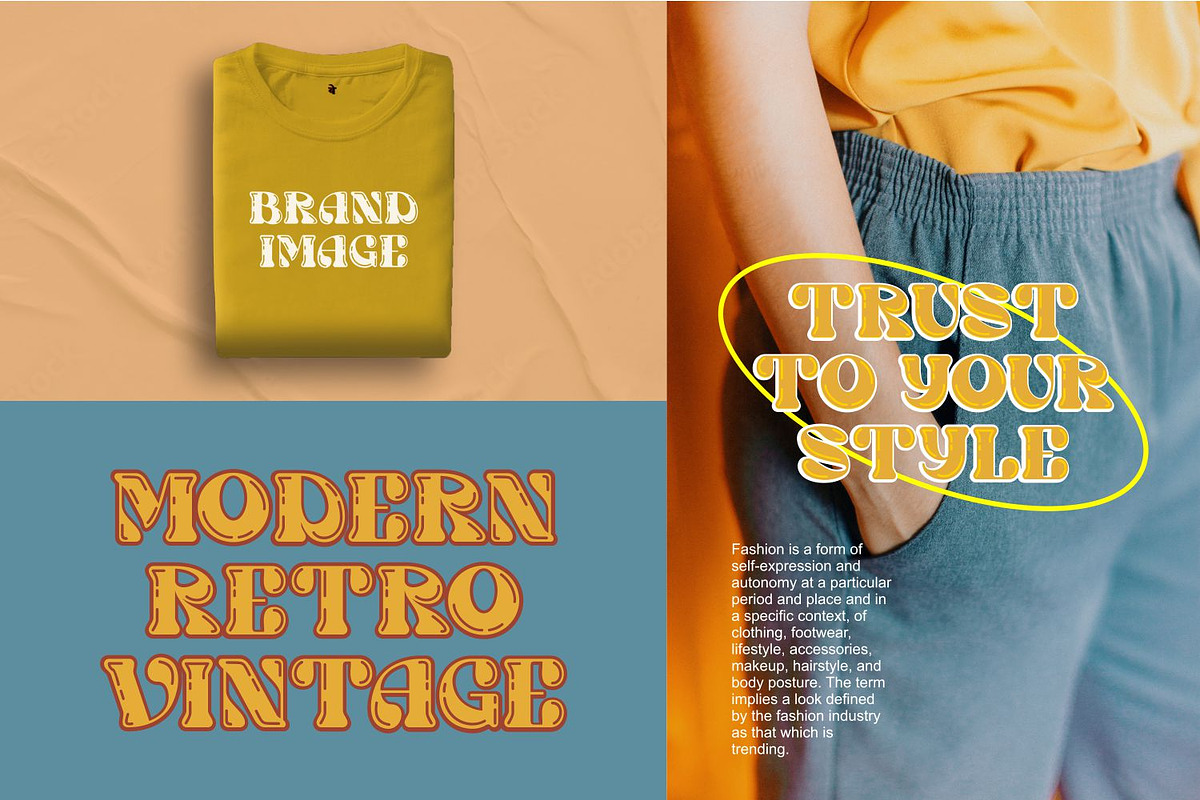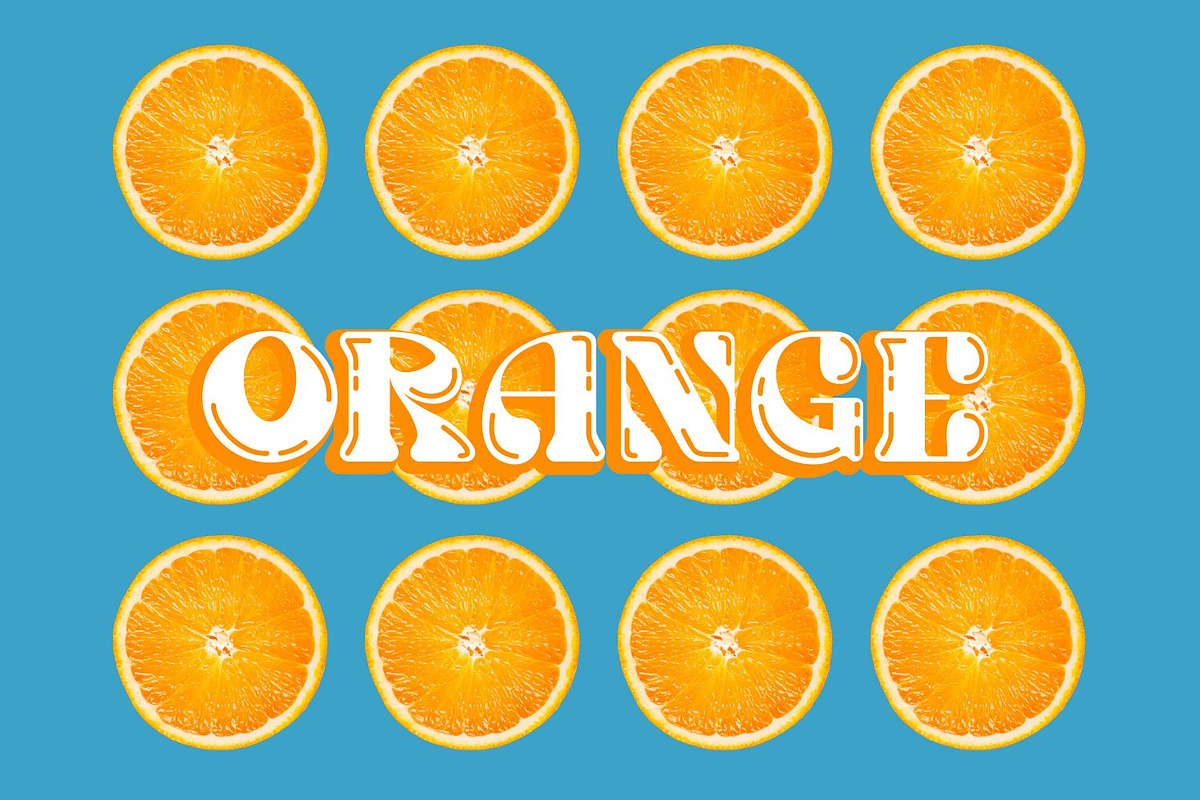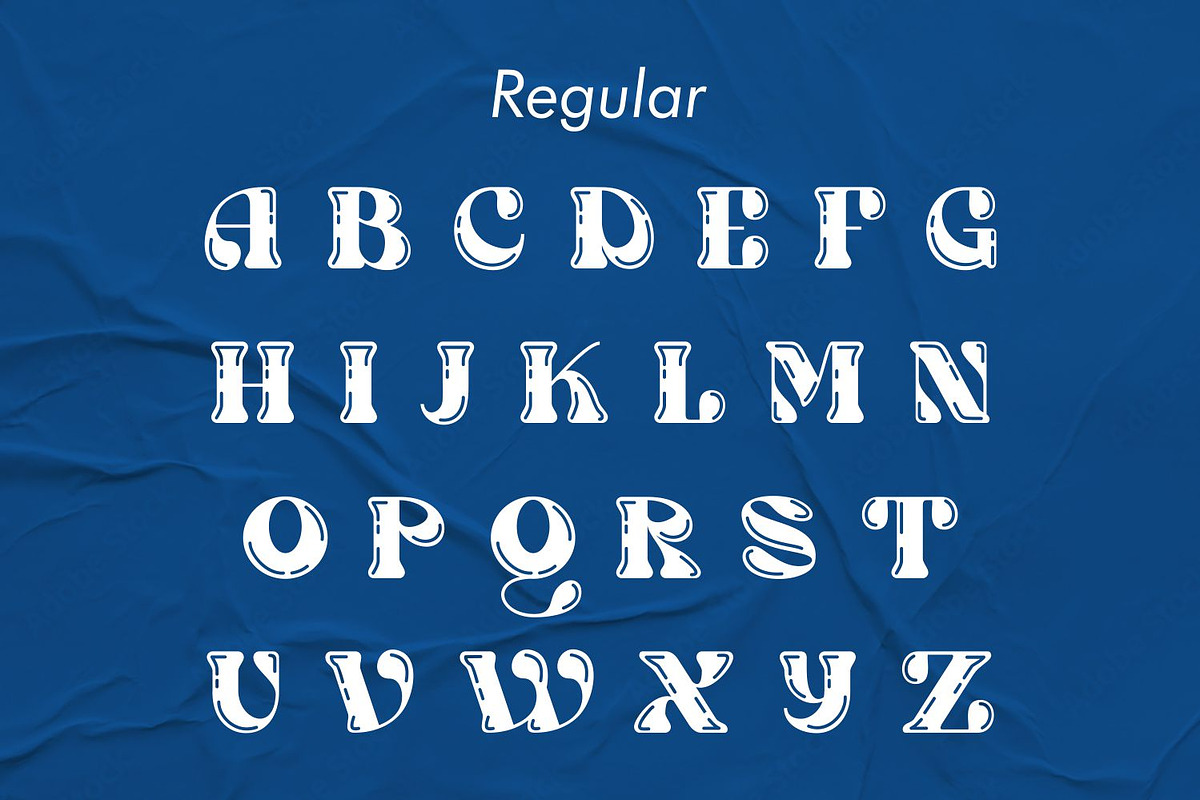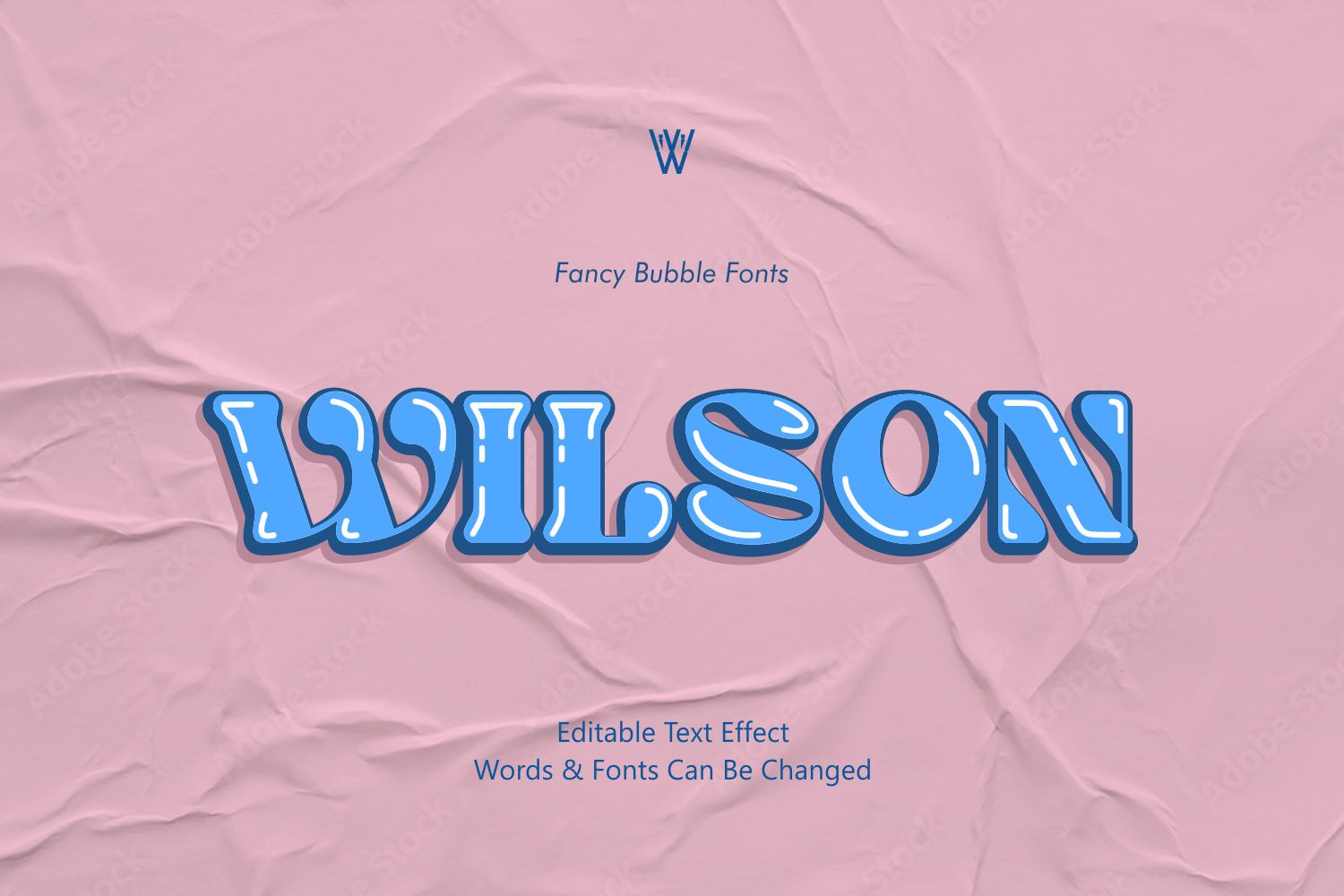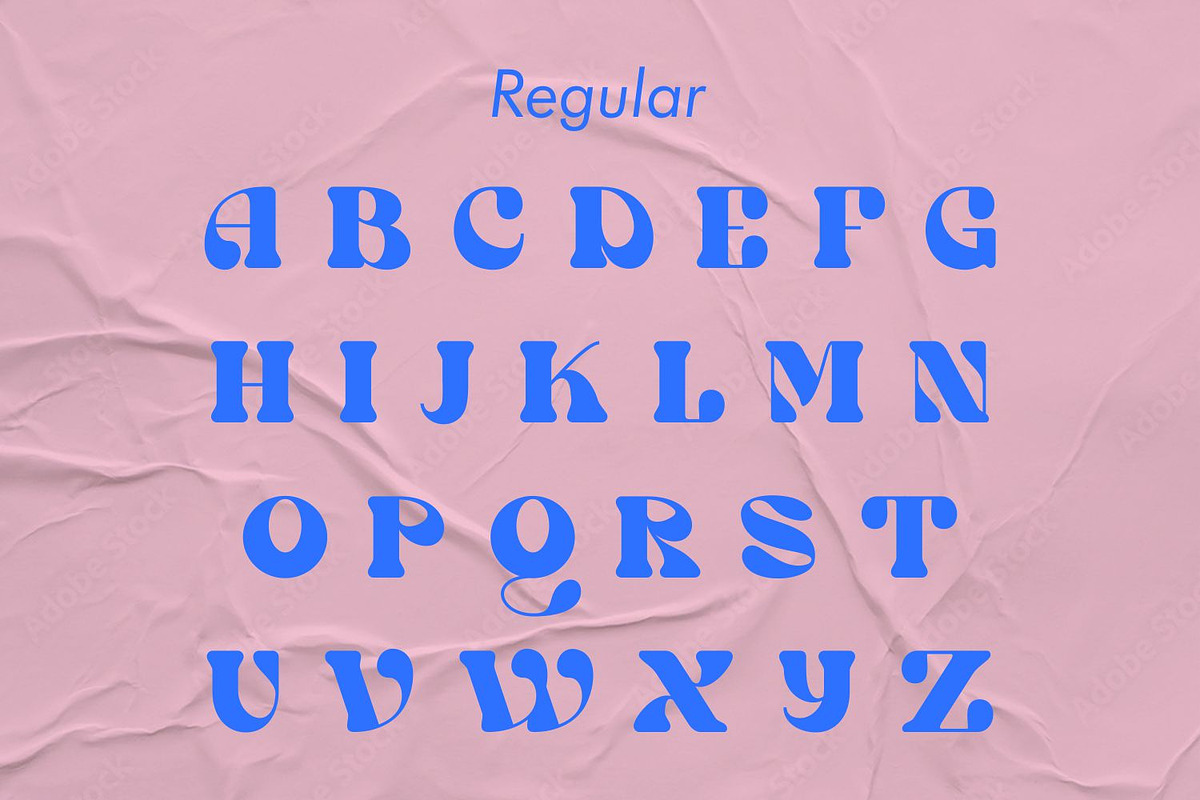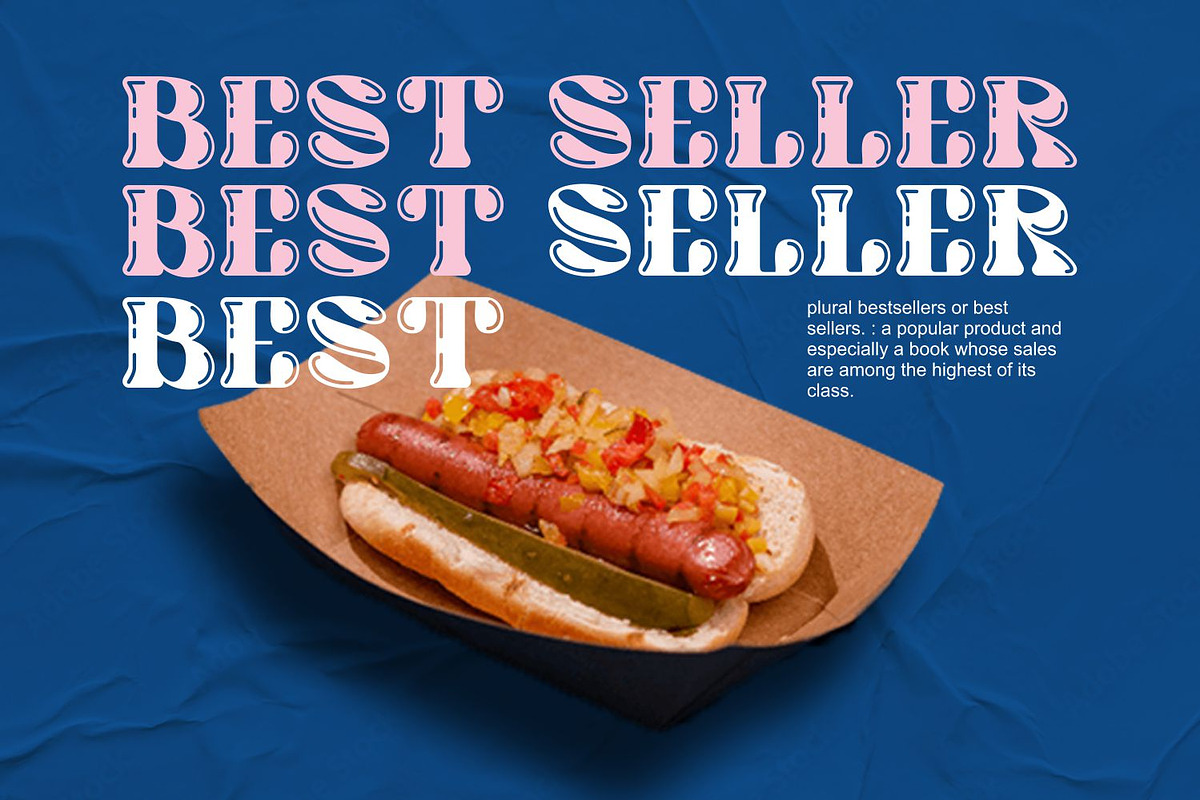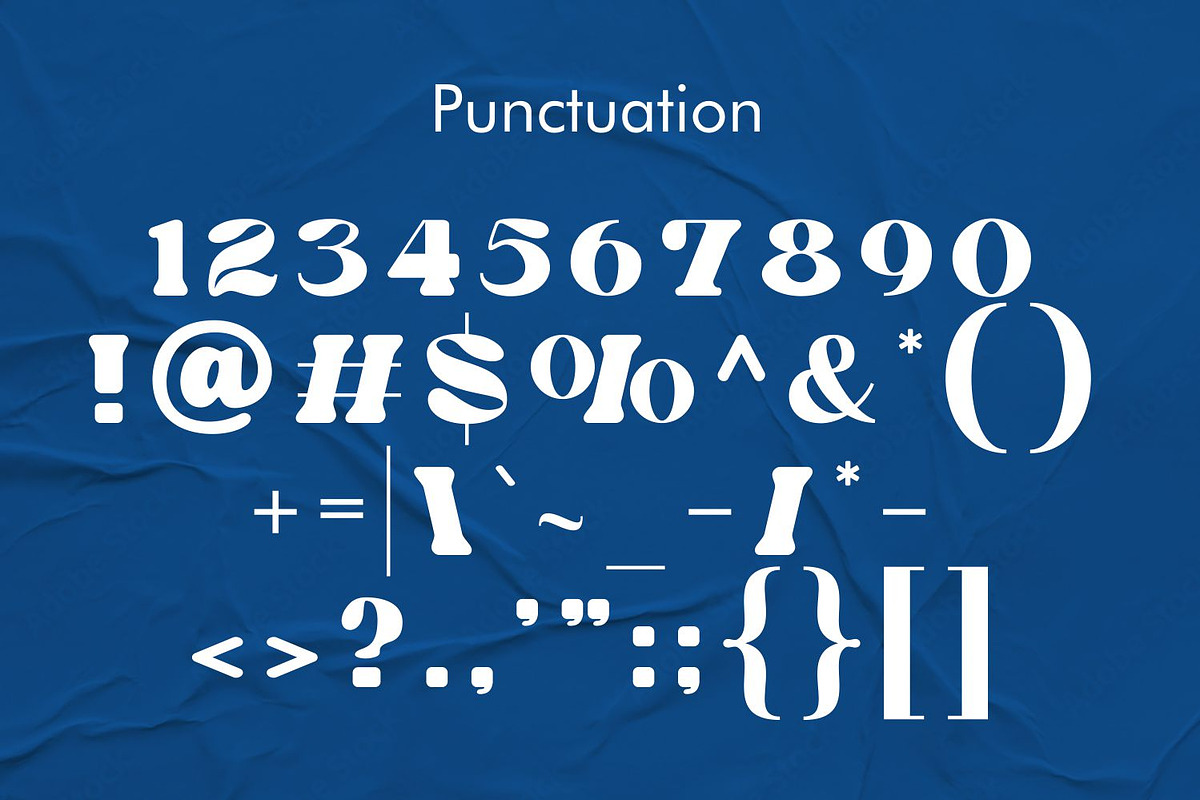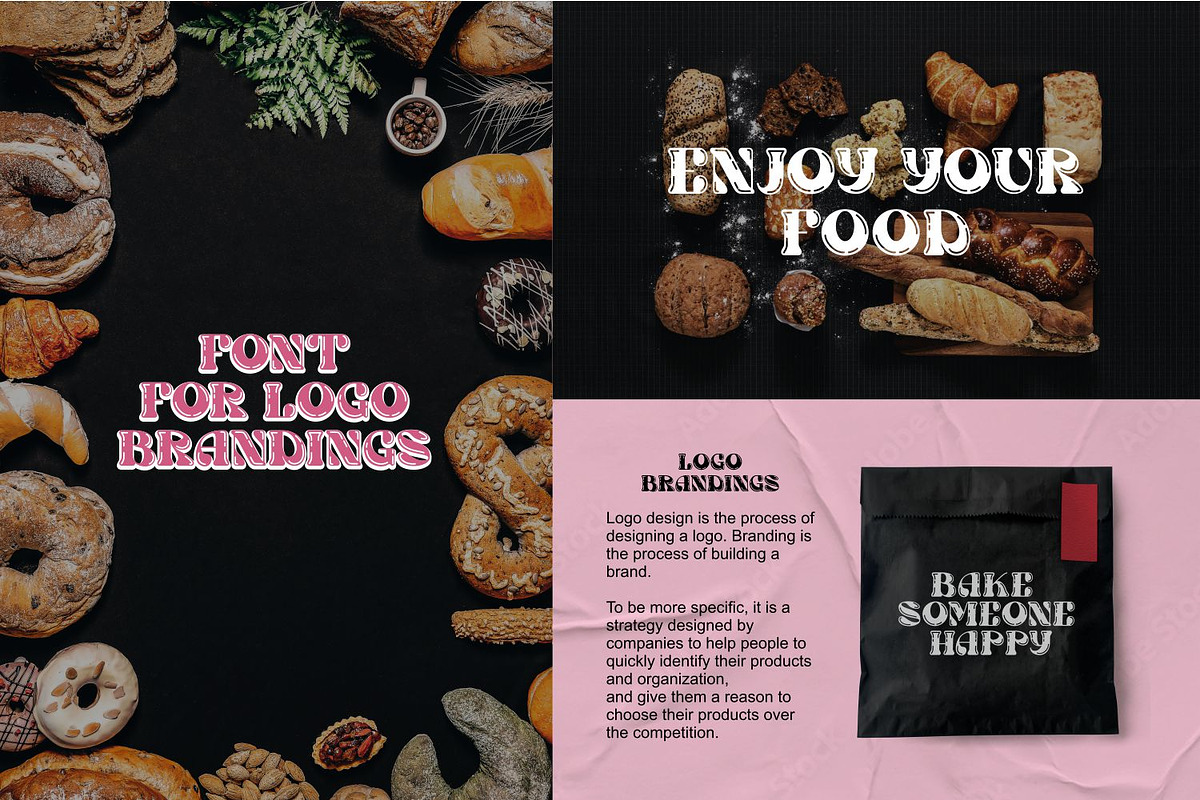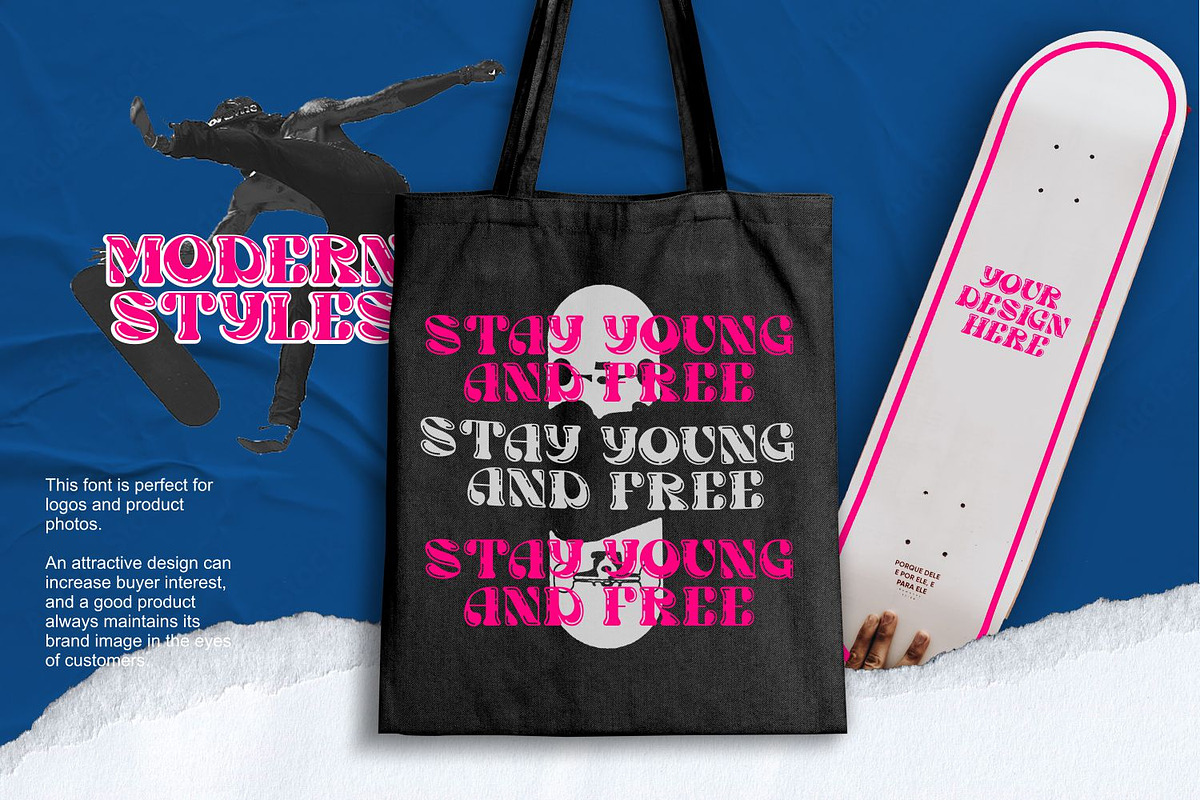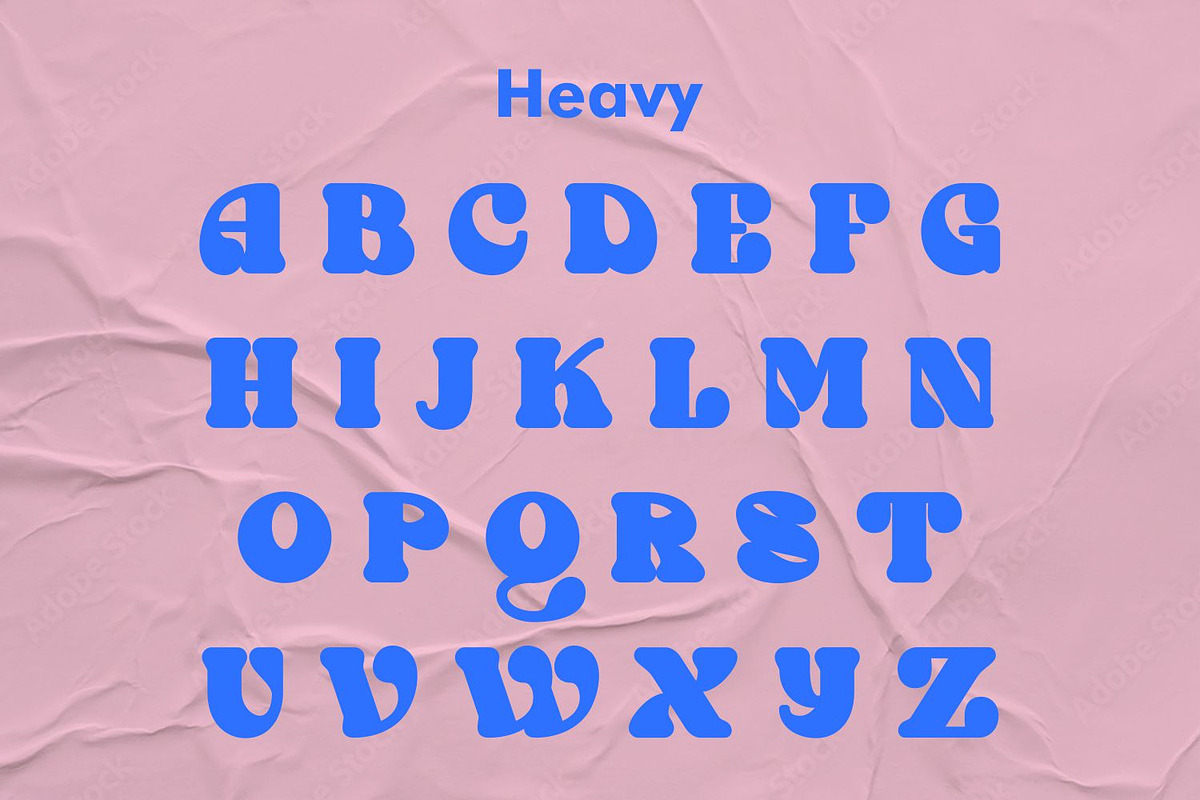
Wilson Bubble Retro Font
The Wilson Font is a playful and whimsical bubble typeface that adds a touch of fun and lightheartedness to any design. With its rounded forms and bubbly shapes, this font exudes a sense of joy and creativity. Whether you’re creating designs for children’s books, birthday cards, or playful branding, the Wilson Font brings a cheerful and youthful vibe that captivates the viewer. Its friendly appearance and versatile nature make it perfect for adding a pop of personality to your projects. Let the Wilson Font bring a smile to your designs.